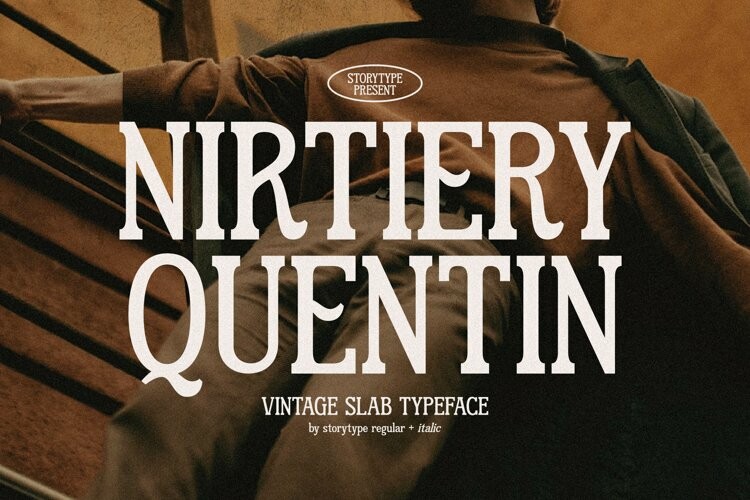
Nirtiery Quentin Font
Nirtiery Quentin FontProudly present NIRTIERY QUENTIN Typeface , created by Storytype,
A serif modern and classic typeface that has own unique style & modern look.
This typeface is perfect for an elegant & luxury logo, book or movie title design, fashion brand, magazine, clothes, lettering, quotes, and so much more.